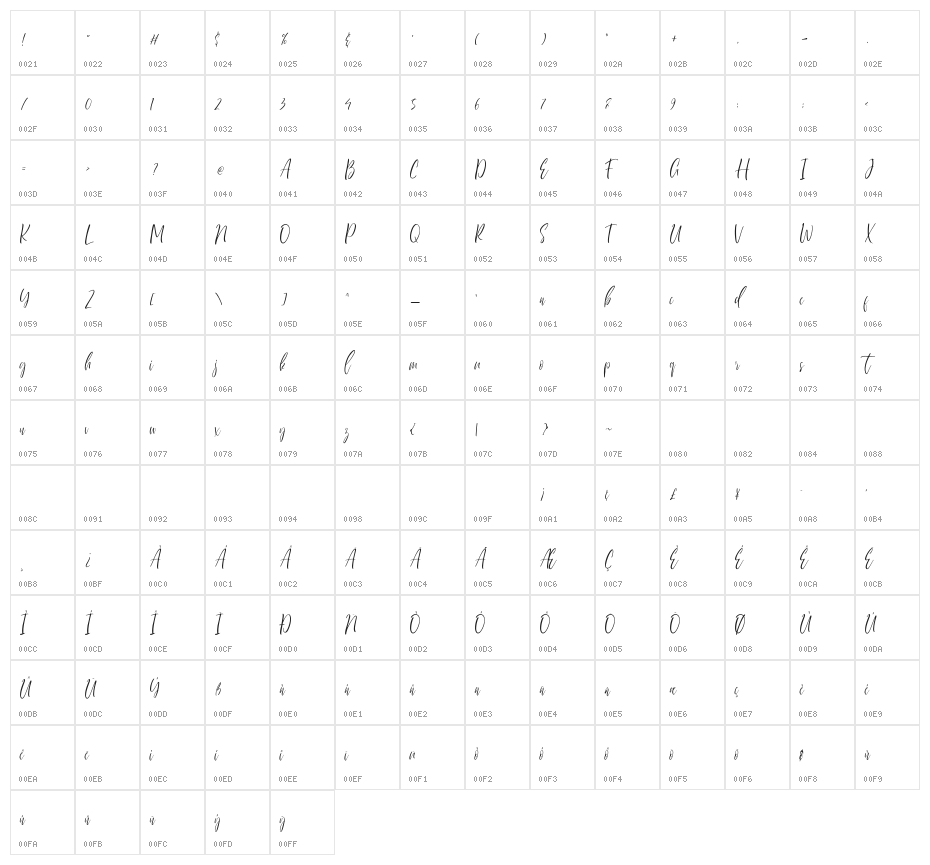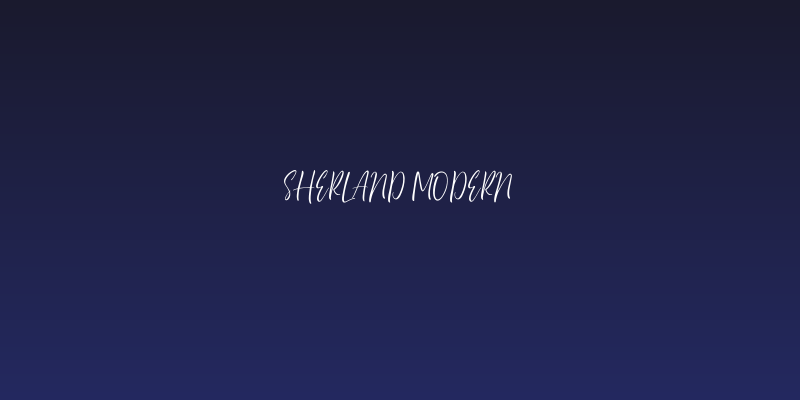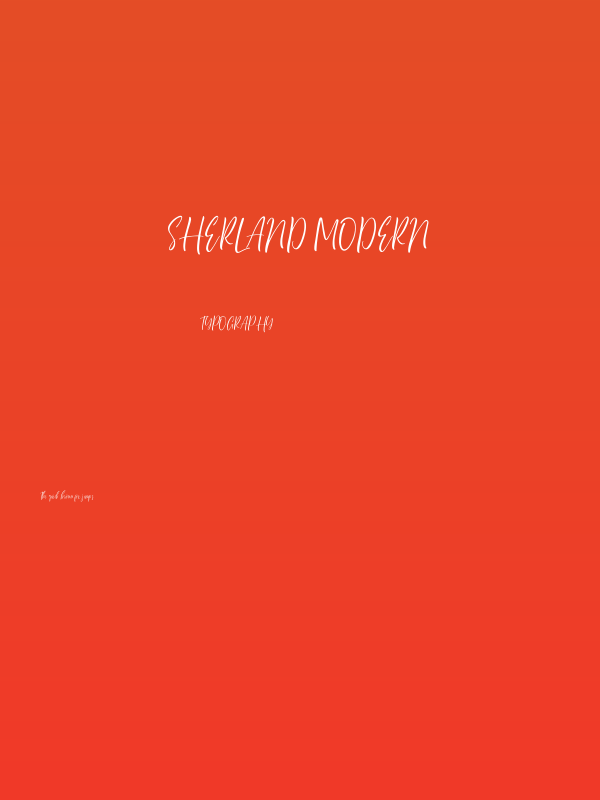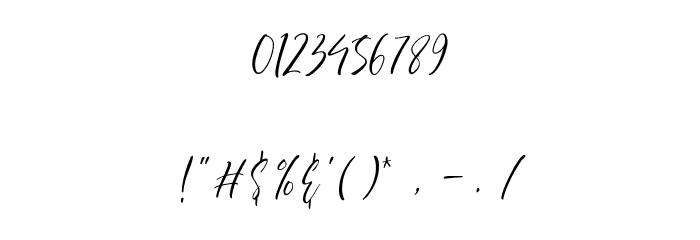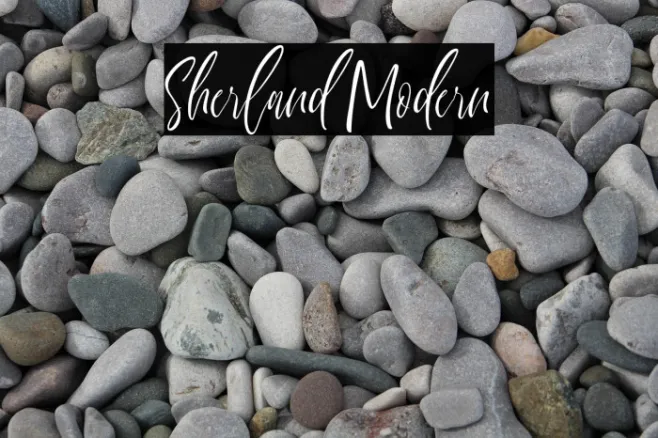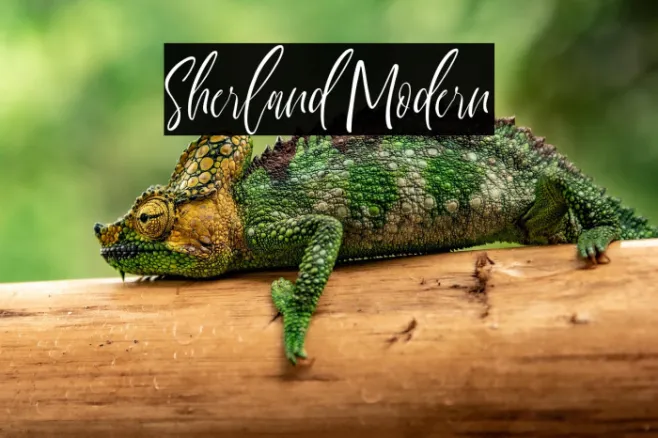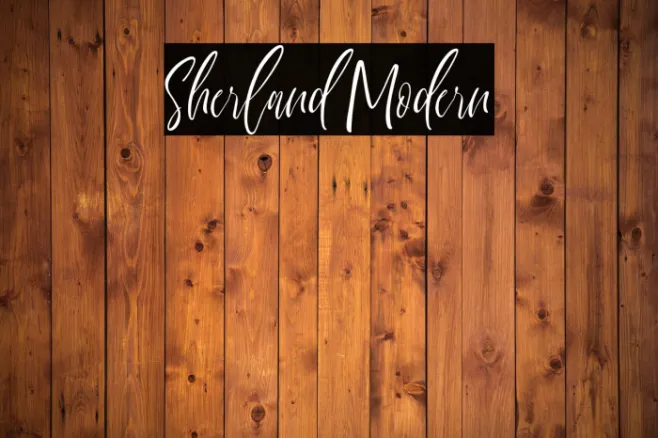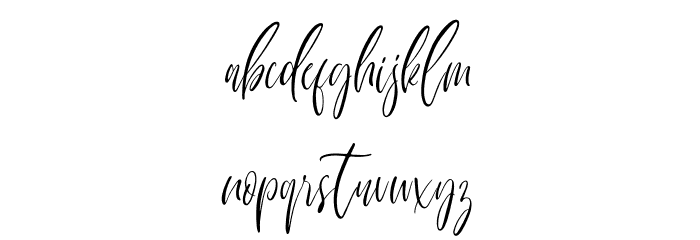
Sherland Modern Font
Sherland Modern Description
This font exudes a modern and elegant script style, characterized by its fluid and graceful strokes. The uppercase letters are tall and slightly narrow, with a distinctive flair that adds a touch of sophistication. The lowercase letters maintain a consistent flow, enhancing readability while retaining an artistic touch. The numerals are well-proportioned, complementing the overall aesthetic. Special characters are thoughtfully designed, ensuring versatility in various contexts. The font's overall appearance is both stylish and approachable, making it suitable for a wide range of creative projects.